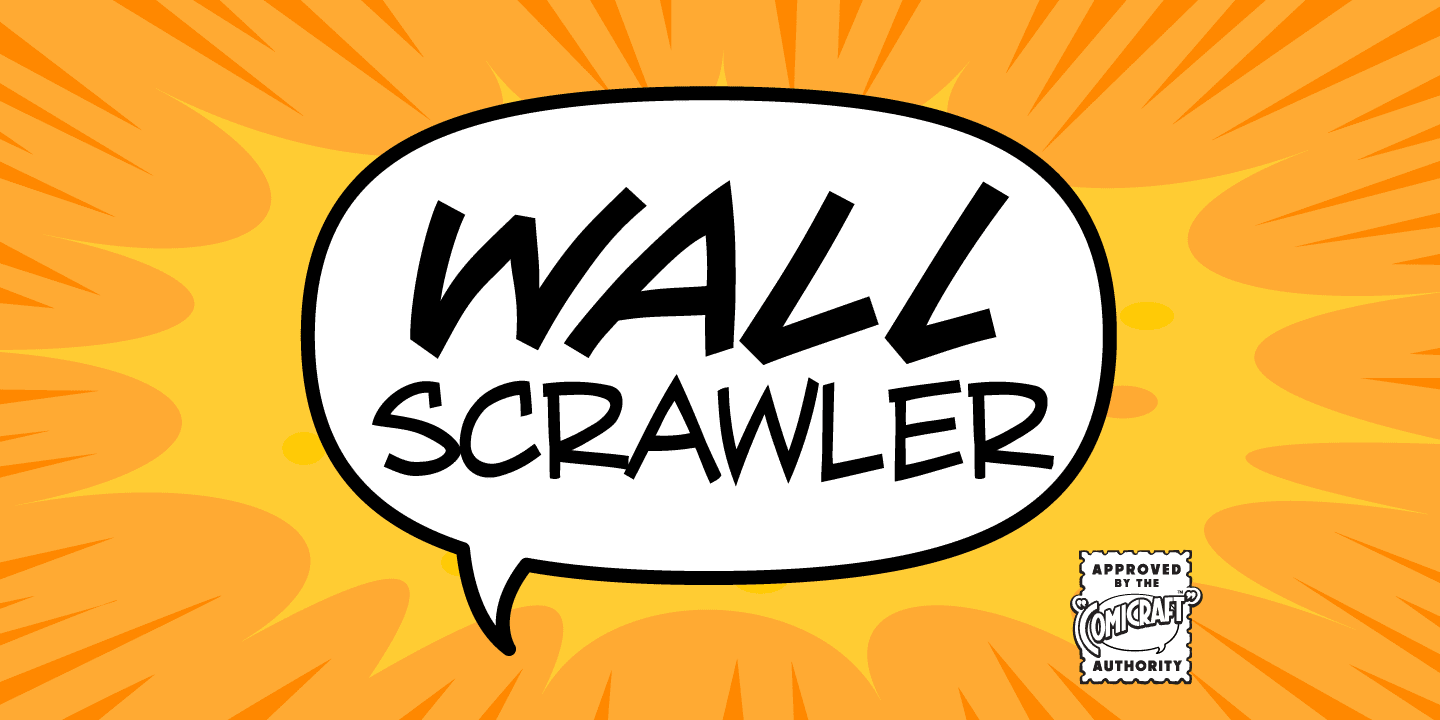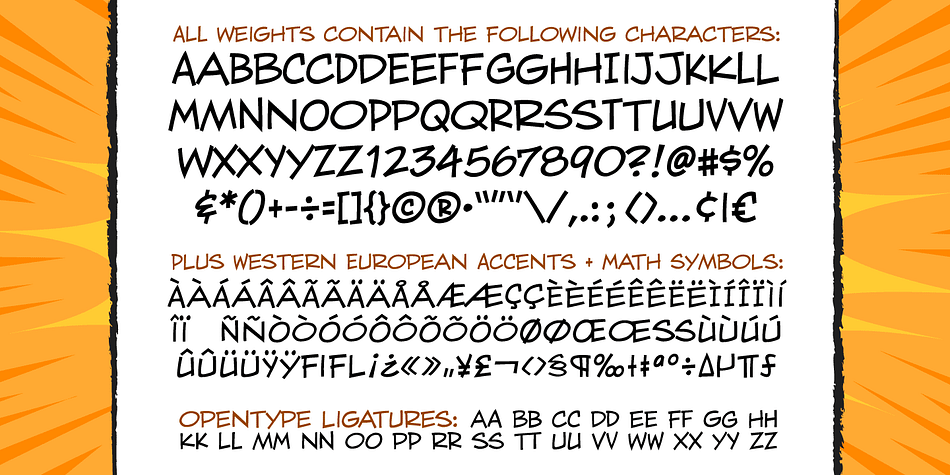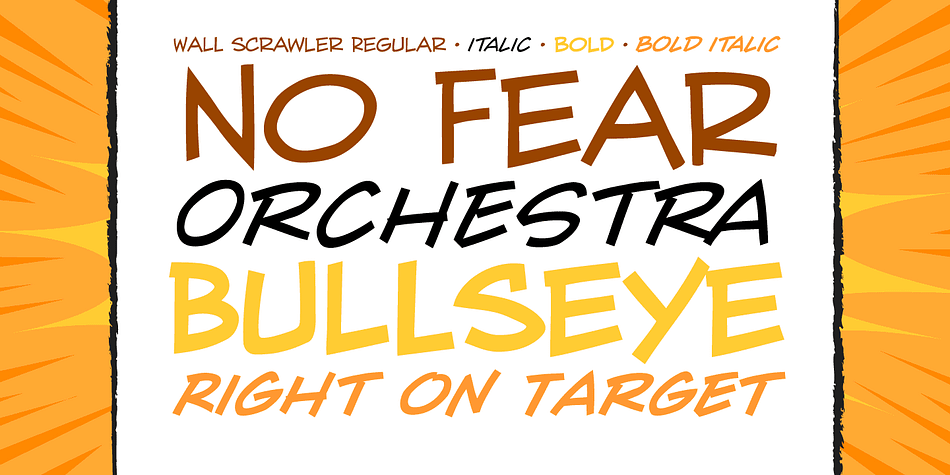
Designed by John Roshell, Wall Scrawler is a hand display font family. This typeface has four styles and was published by Comicraft.
This slick, marker style font was created by our fontmeister, Mr Fontastic, based on the slick, marker style of… Well, Mr Fontastic himself! Check it out in the pages of Marvel’s classic DAREDEVIL story GUARDIAN DEVIL. DD scribe and indy movie maker Kevin Smith himself told us it was the coolest font he’d ever seen in his ENTIRE life! No, sorry, that is a lie, but he did tell us he liked the design work Mr Fontastic created for the JAY & SILENT BOB trades, No, seriously, he did. We wouldn’t lie to you. Well, except for that last time. By the way, this font also doubles as a dynamite sound effect font, that’s why we’re charging you twice as much as usual. No, sorry, lying again. About the price, not the sound effect thing.